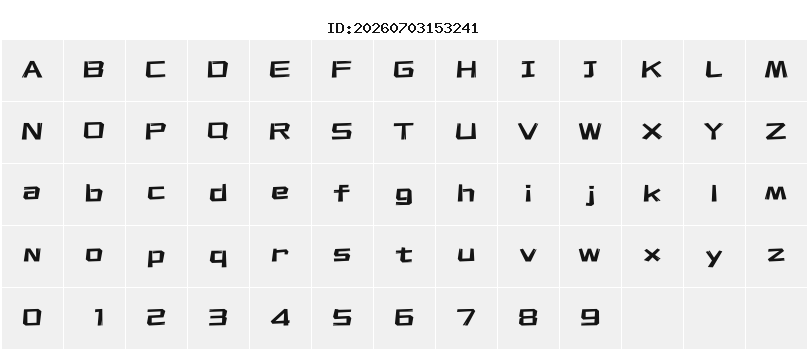
286-上首云木体 Preview
• Font Name: 286-上首云木体
• Full Font Name: 286-上首云木体
About 286-上首云木体.ttf
286-上首云木体.ttf is a modern, elegant sans-serif font designed for ultimate readability and visual harmony. Perfect for branding, headlines, web design, and print materials.